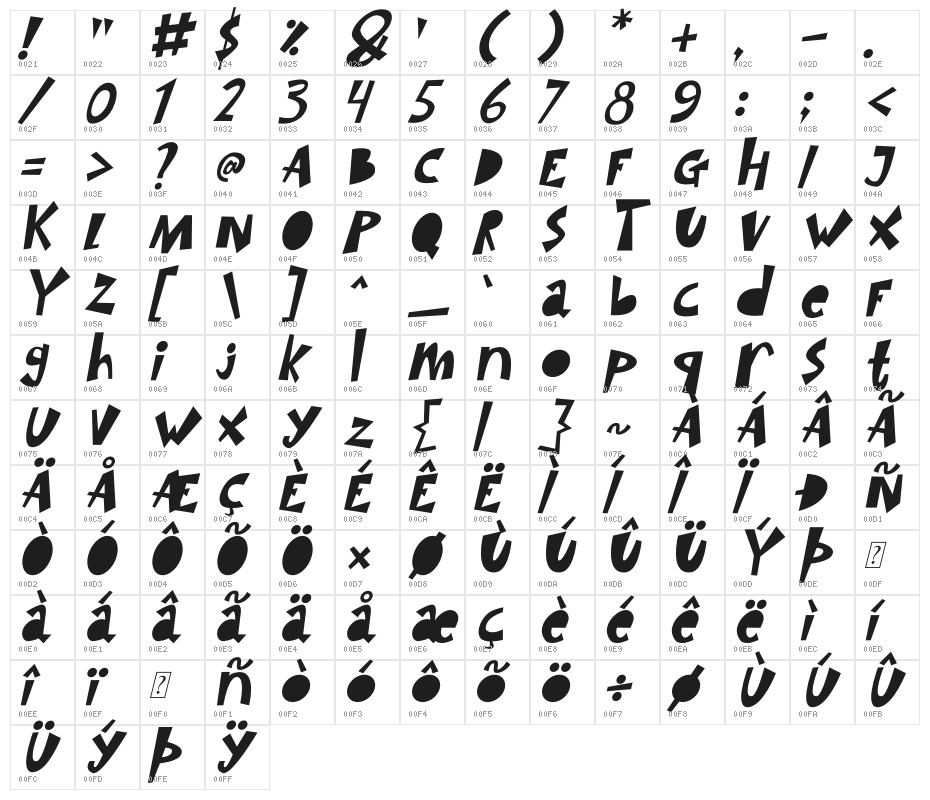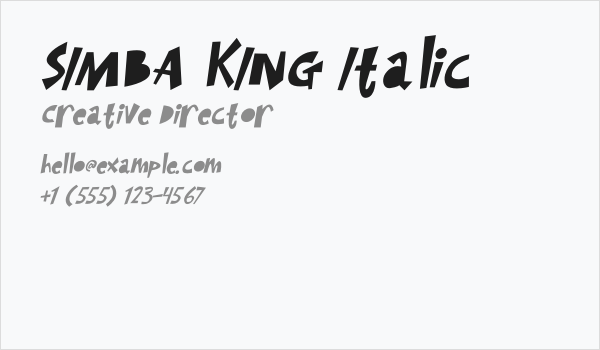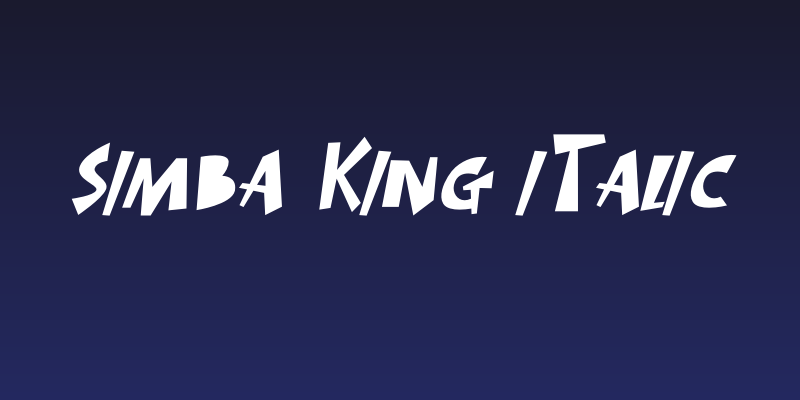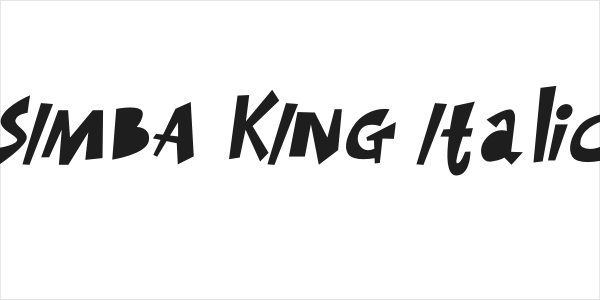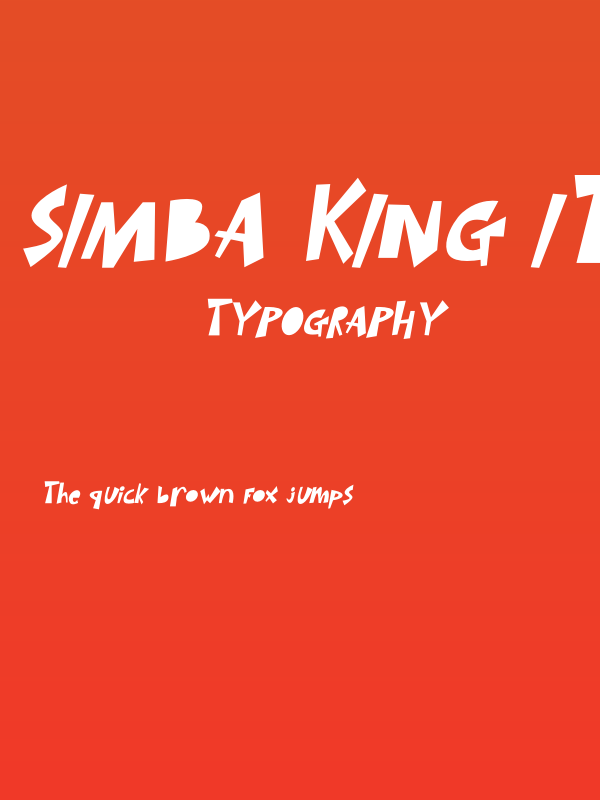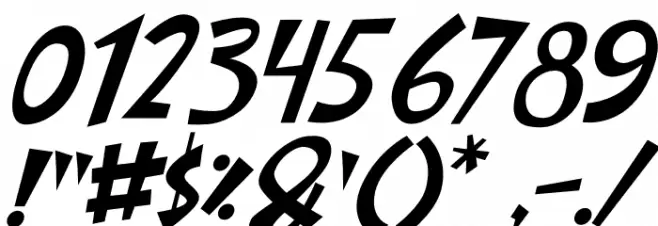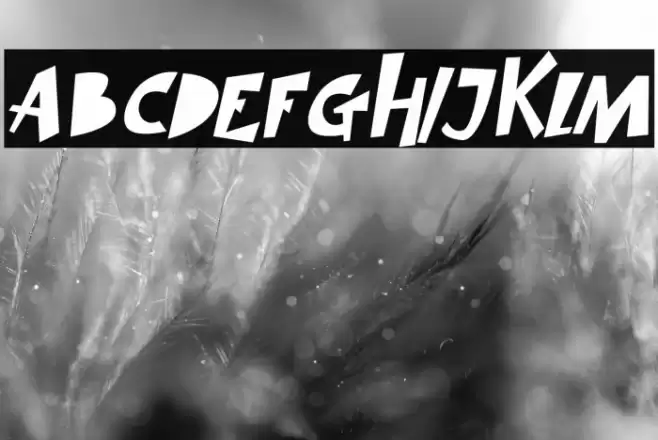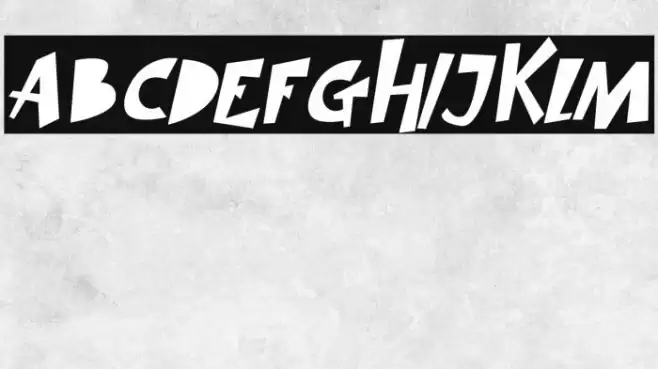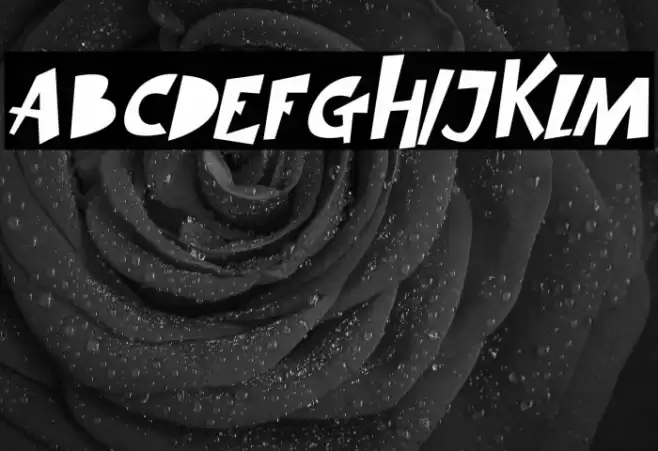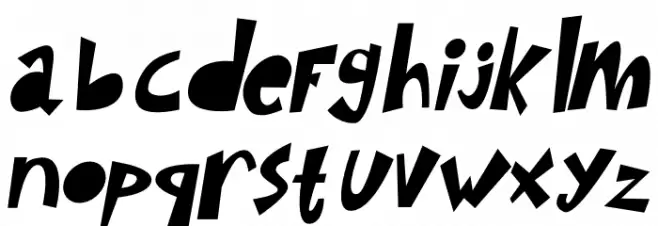
SIMBA KING Italic Font
SIMBA KING Italic Description
This font features a bold and dynamic style with a playful and energetic appearance. The characters are italicized, giving them a sense of motion and fluidity. The uppercase and lowercase letters have a unique, angular design that adds a modern twist to the overall look. The numbers and special characters maintain this bold and quirky aesthetic, making the font suitable for creative and eye-catching designs. The strokes are thick and consistent, providing a strong visual impact. This font is ideal for projects that require a fun and lively touch.
| Proposed Projects | Ideal for posters, children's books, playful branding, and creative advertisements. |